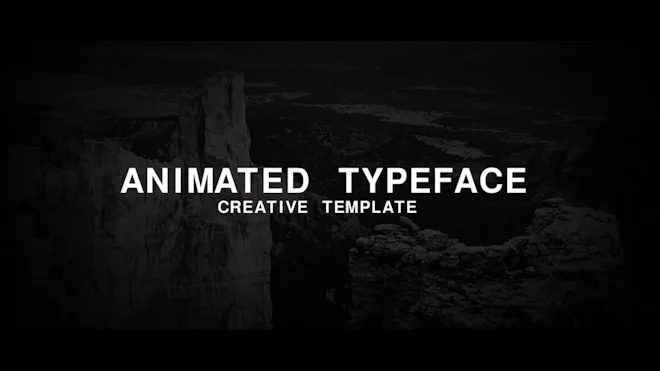
Animated Typeface unique and creative mogrt template that includes 26 animated English letters. For each letter, the original animation is applied in the form of a glitch and a sliding appearance. The project is easy to change, color, size, position, distance between letters and the position of each letter. The project is perfect for trailers, teasers, intro, movie. Add modern text animations to your video. Try it now!